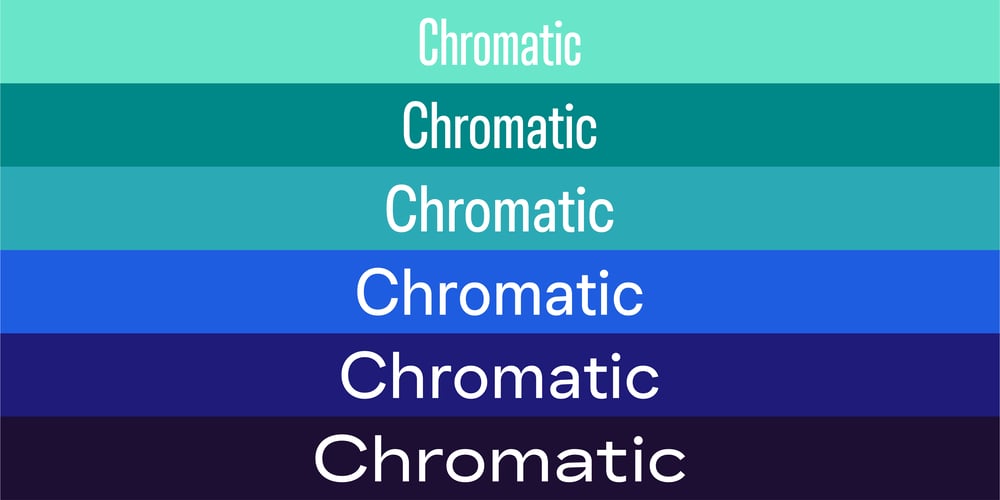
Chromatic Font Family was designed by Colophon Foundry and published by Colophon Foundry. Chromatic contains 76 styles and family package options. Chromatic is an all-encompassing ‘anti-genre’ super family. By sympathetically changing glyph construction while passing through its six widths Chromatic traverses multiple genres — this results in not only a plethora of highly usable individual fonts but a full type system for all use cases.1 — The Compressed WidthThe most condensed and modular width, with a vertical gas pipe design for a block-like and impactful aesthetic.2 — The Compact WidthSitting between a compressed (with gas-pipes) and condensed, Compact is useful for smaller type sizes where a space-conscious aesthetic is required.3 — The Condensed WidthA Condensed style of Grotesque to create impactful headlines, whilst leaning to a less machined aesthetic.4 — The Grotesque WidthSwiss-inspired, perpendicular, horizontal terminals, with Narrower proportions, for a more nuanced and neutral aesthetic.5 — The Geometric WidthCircular forms with open apertures, for a friendly and approachable aesthetic.6 — The Gothic WidthThe widest, american-inspired styling with attached arm connections and open apertures, for an assertive and confident aesthetic.A monospaced version takes the grotesque DNA into a fixed-width format, and is available in four weights — Regular, Medium, SemiBold and Bold — all open to licensing in both Standard (‘STD’) and Professional (‘PRO’) versions.It also includes copious alternate glyphs and characters that are categorized into a set of nine pre-defined stylistic sets. For further granular control, Chromatic contains 24 individual character variations to enable users to customize and modify the type family.